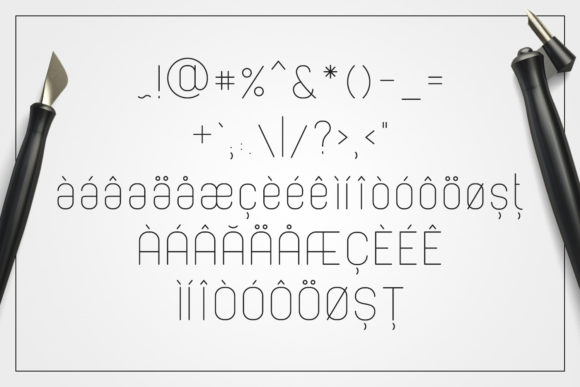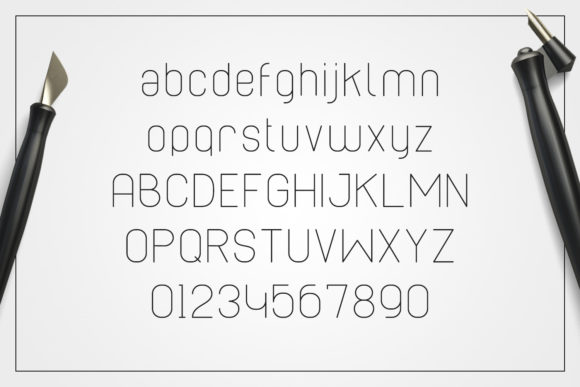
Cabo Rounded Light Font: The Ultimate Design Companion
In the world of typography, a font can make or break a design. With so many options available, it can be overwhelming to choose the perfect one. However, if you’re looking for a clean, adaptable, and versatile sans serif font, look no further than Cabo Rounded Light. This font is a game-changer for designers and crafters alike, and in this article, we’ll explore why it’s a must-have in your design arsenal.
What is Cabo Rounded Light Font?
Cabo Rounded Light is a sans serif font that boasts a neat and simple style, making it suitable for a wide variety of designs. Its clean lines and rounded edges give it a friendly and approachable feel, perfect for designs that require a touch of warmth and personality. Whether you’re working on a branding project, a website, or a craft project, this font is sure to impress.
Key Features of Cabo Rounded Light Font
- Clean and Simple Style: Cabo Rounded Light’s minimalist design makes it easy to read and versatile enough to be used in various design contexts.
- Adaptable: This font is highly adaptable, making it perfect for use in a wide range of designs, from digital to print.
- Sans Serif: The font’s sans serif design gives it a modern and sleek look that’s perfect for contemporary designs.
- Rounded Edges: The rounded edges of the font add a touch of warmth and friendliness, making it perfect for designs that require a more approachable feel.
Why Choose Cabo Rounded Light Font?
So, why should you choose Cabo Rounded Light font for your next design project? Here are just a few reasons:
- Universal Appeal: The font’s clean and simple design makes it universally appealing, ensuring that it will work well with a wide range of design styles and themes.
- Easy to Read: Cabo Rounded Light is highly legible, making it perfect for use in body text, headings, and titles.
- Customizable: The font’s simple design makes it easy to customize, allowing you to adjust the size, color, and style to suit your design needs.
Design Applications for Cabo Rounded Light Font
Cabo Rounded Light font is incredibly versatile and can be used in a wide range of design applications, including:
- Branding: Use Cabo Rounded Light font to create a professional and modern brand identity that will help you stand out from the competition.
- Web Design: The font’s clean design and high legibility make it perfect for use in website design, ensuring that your content is easy to read and visually appealing.
- Print Design: Cabo Rounded Light font is also suitable for use in print design, including brochures, flyers, posters, and business cards.
- Crafting: If you’re a crafter, you’ll love using Cabo Rounded Light font to add a personal touch to your projects, from handmade cards to DIY home decor.
Tips for Using Cabo Rounded Light Font
To get the most out of Cabo Rounded Light font, here are a few tips to keep in mind:
- Pair it with Other Fonts: Cabo Rounded Light font pairs well with other sans serif fonts, as well as serif fonts, making it easy to create a unique and visually appealing typography combination.
- Experiment with Colors: The font’s simple design makes it easy to experiment with different colors and textures, allowing you to add a pop of color to your design.
- Use it Consistently: To create a cohesive design, use Cabo Rounded Light font consistently throughout your project.
| Font Name | Cabo Rounded Light Font |
| Author | Design A Lot |
In conclusion, Cabo Rounded Light font is a versatile and adaptable sans serif font that’s perfect for a wide range of design applications. Its clean and simple design, combined with its rounded edges and high legibility, make it a must-have for designers and crafters alike. Whether you’re working on a branding project, a website, or a craft project, Cabo Rounded Light font is sure to become your go-to font.